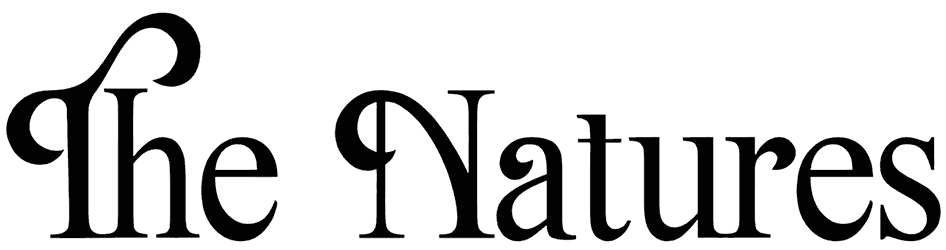
The Natures Font
Do you want a serif font that represents a modern yet classic touch and stands out in your creative imagination? Then check out The Natures, featuring a thick, decorative display that entraps the audience’s attention with a strong impression.
It conveys a sense of professionalism, confidence, and validity, helping you go ahead and manage your time. This font looks great for wedding invitations, book covers, logotypes, branding designs, and advertisements.